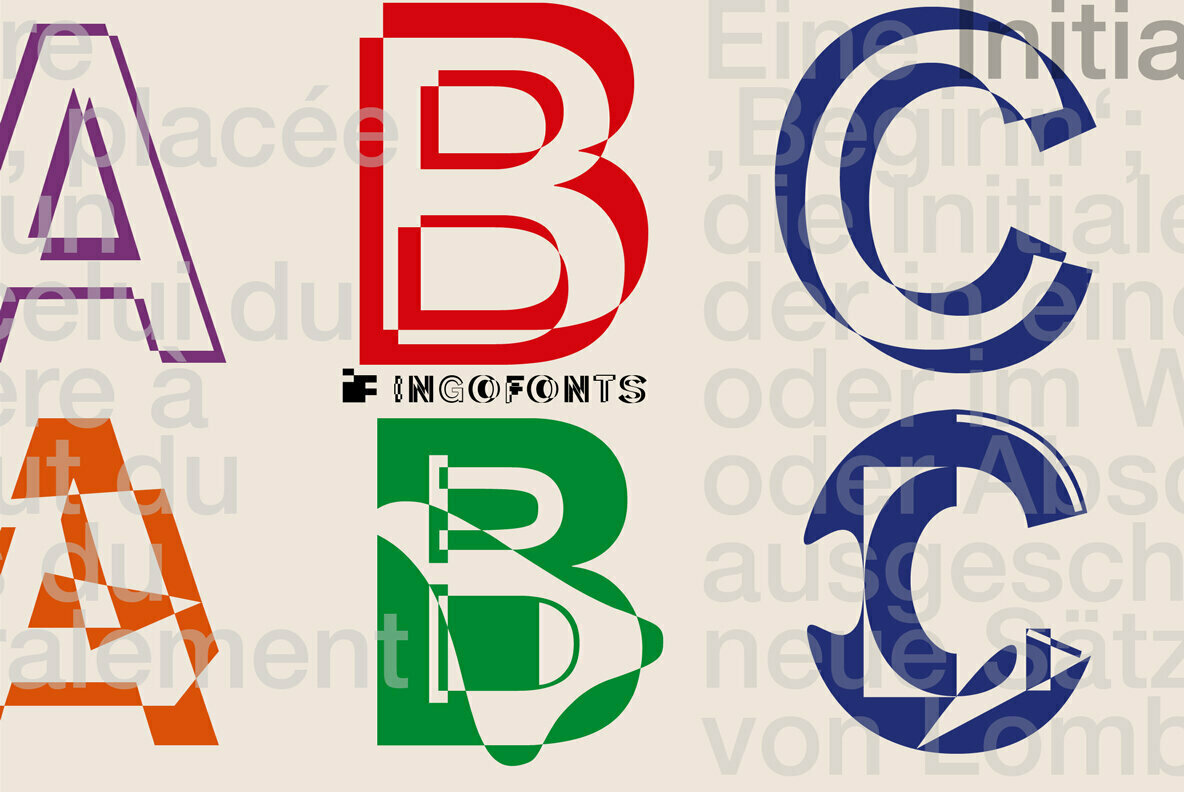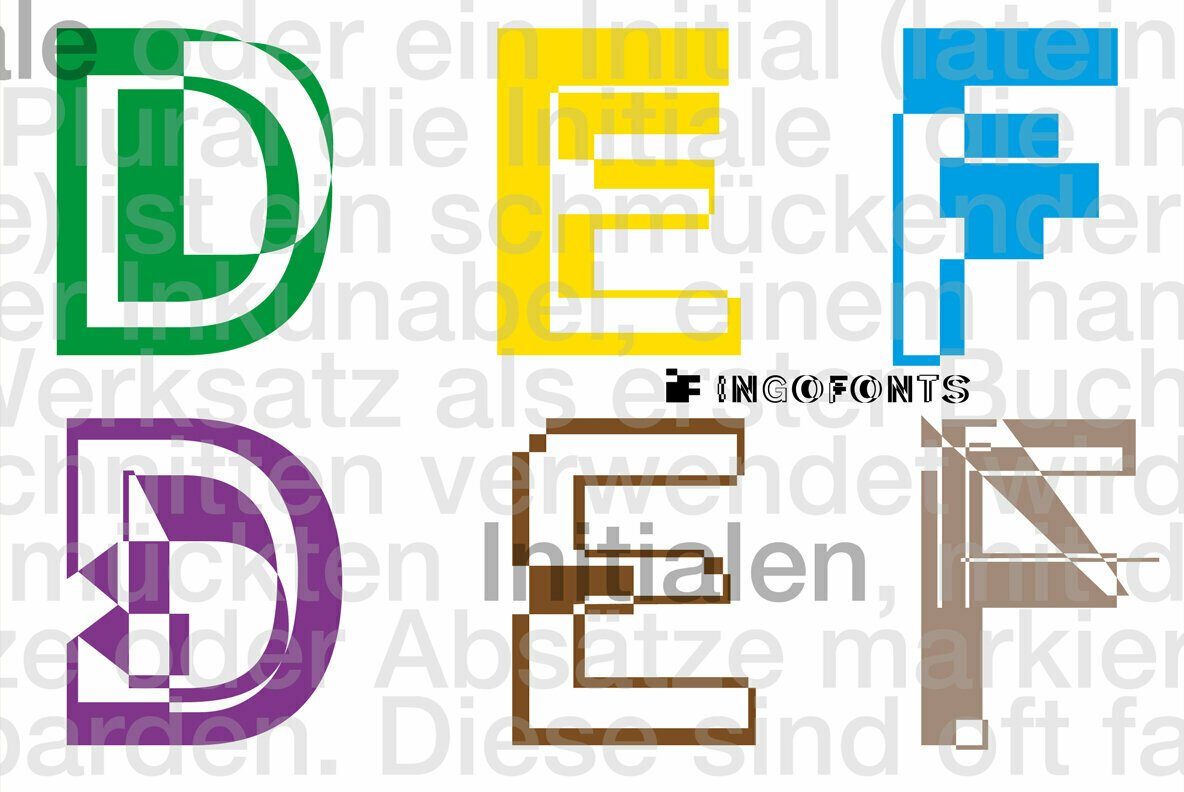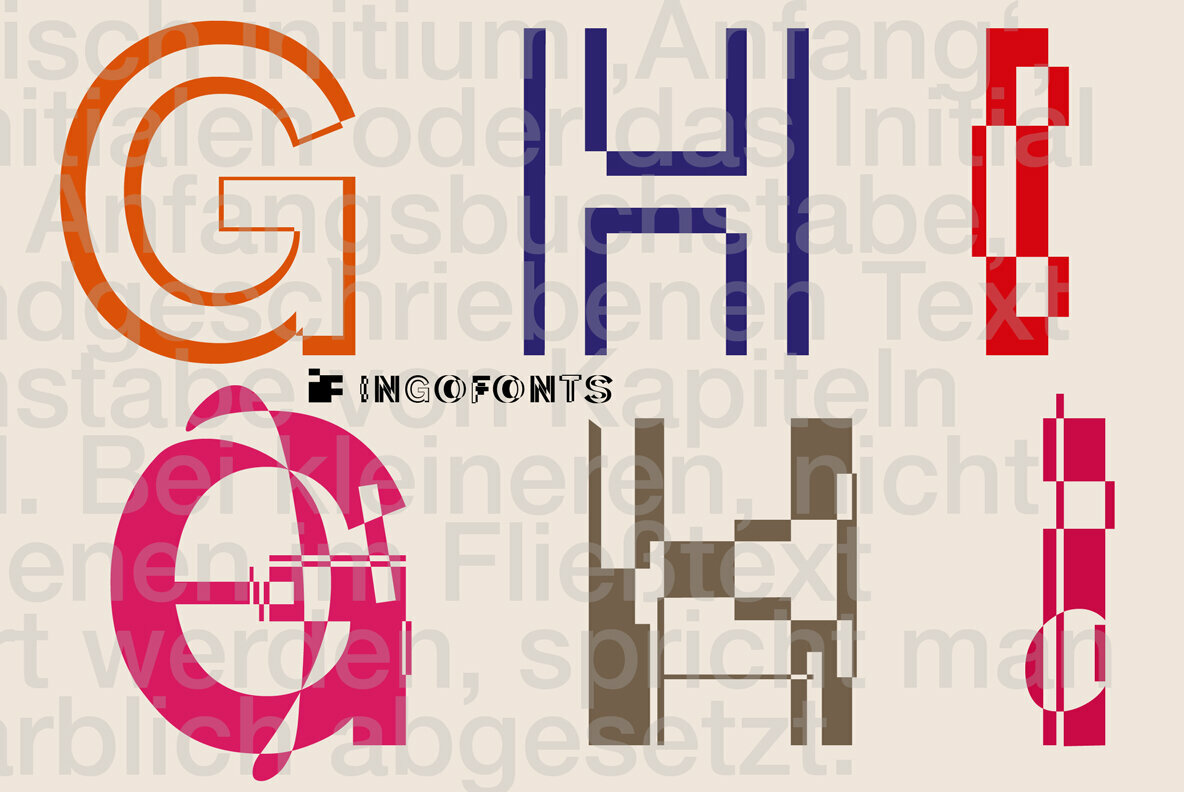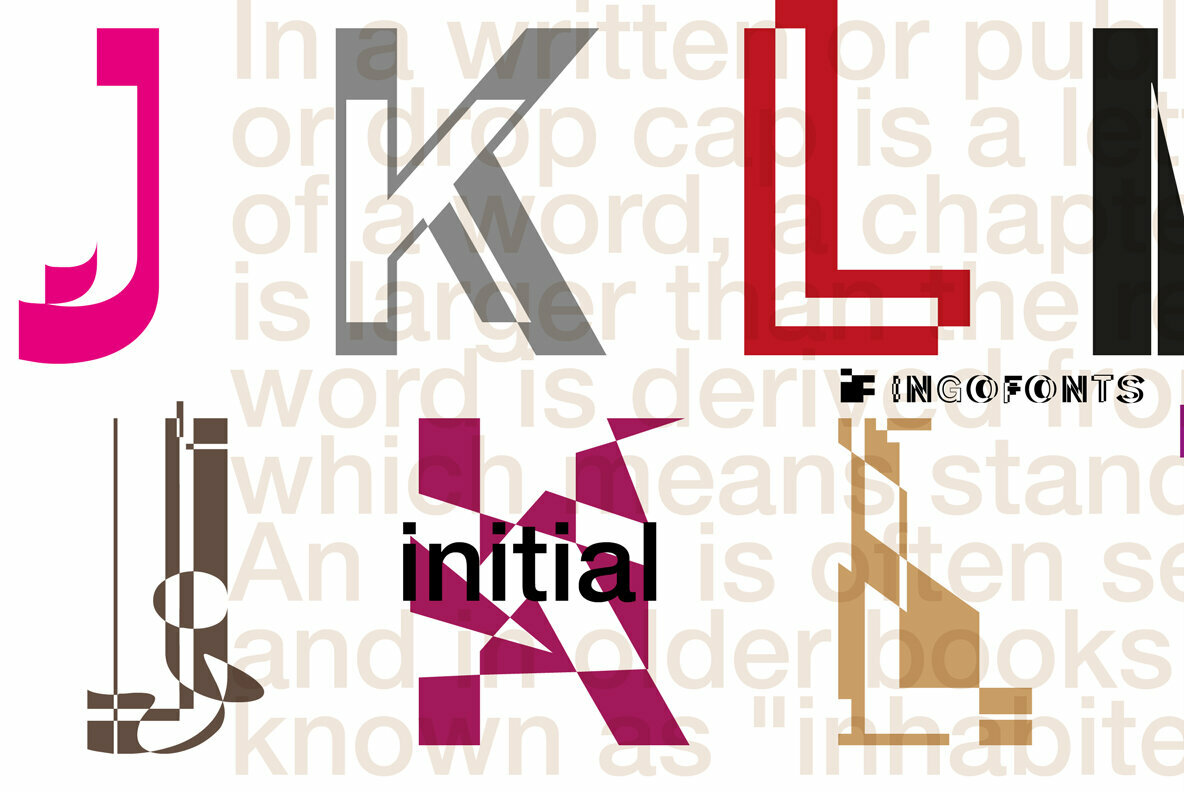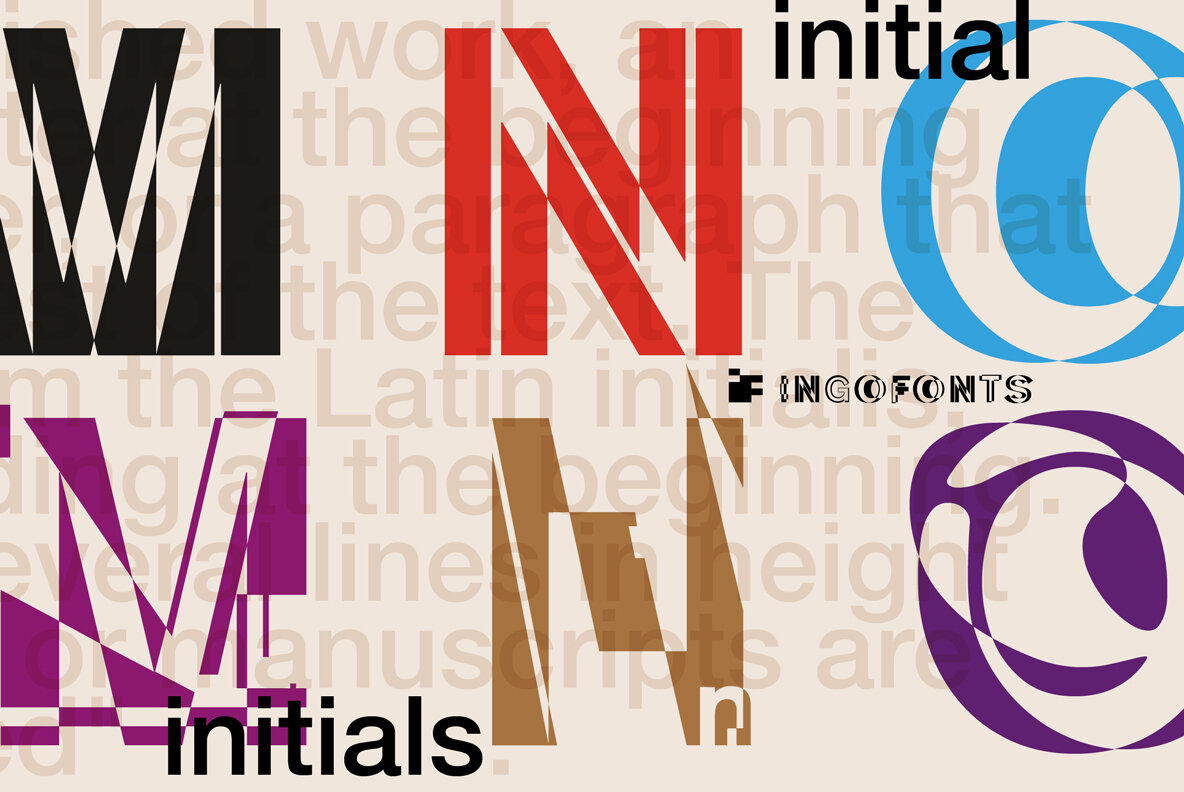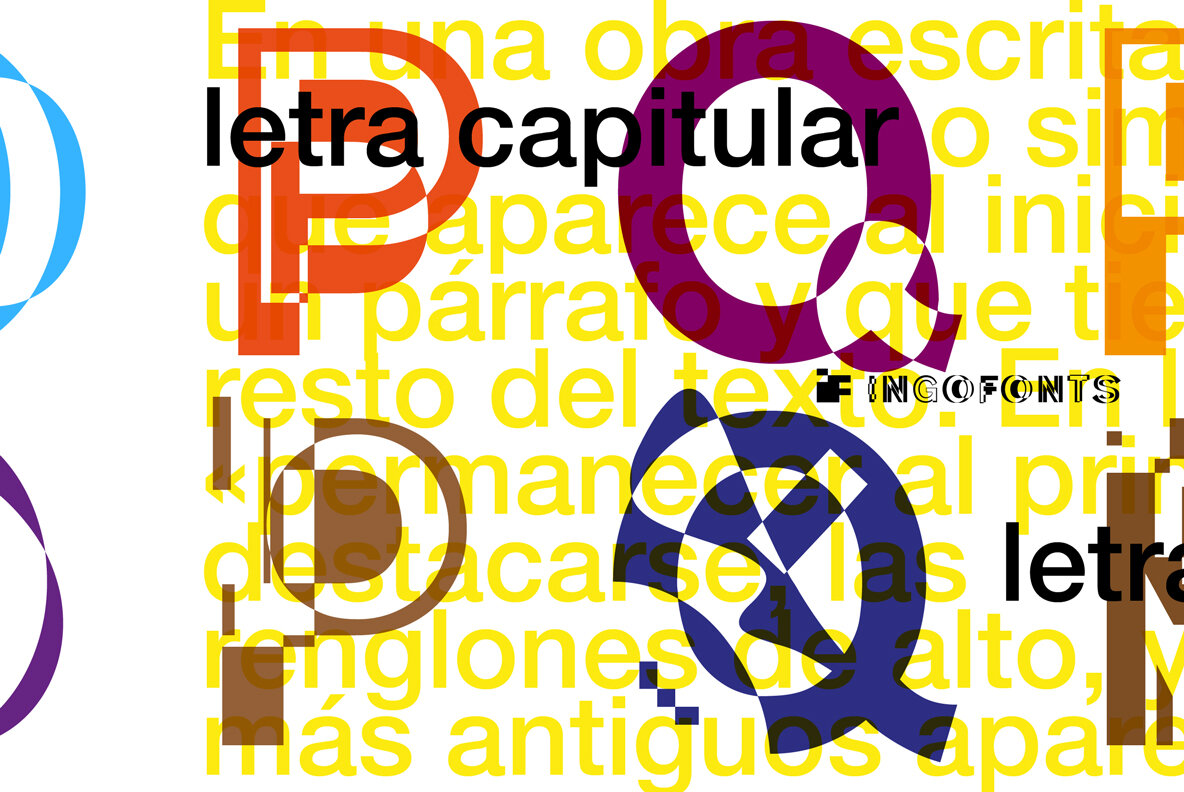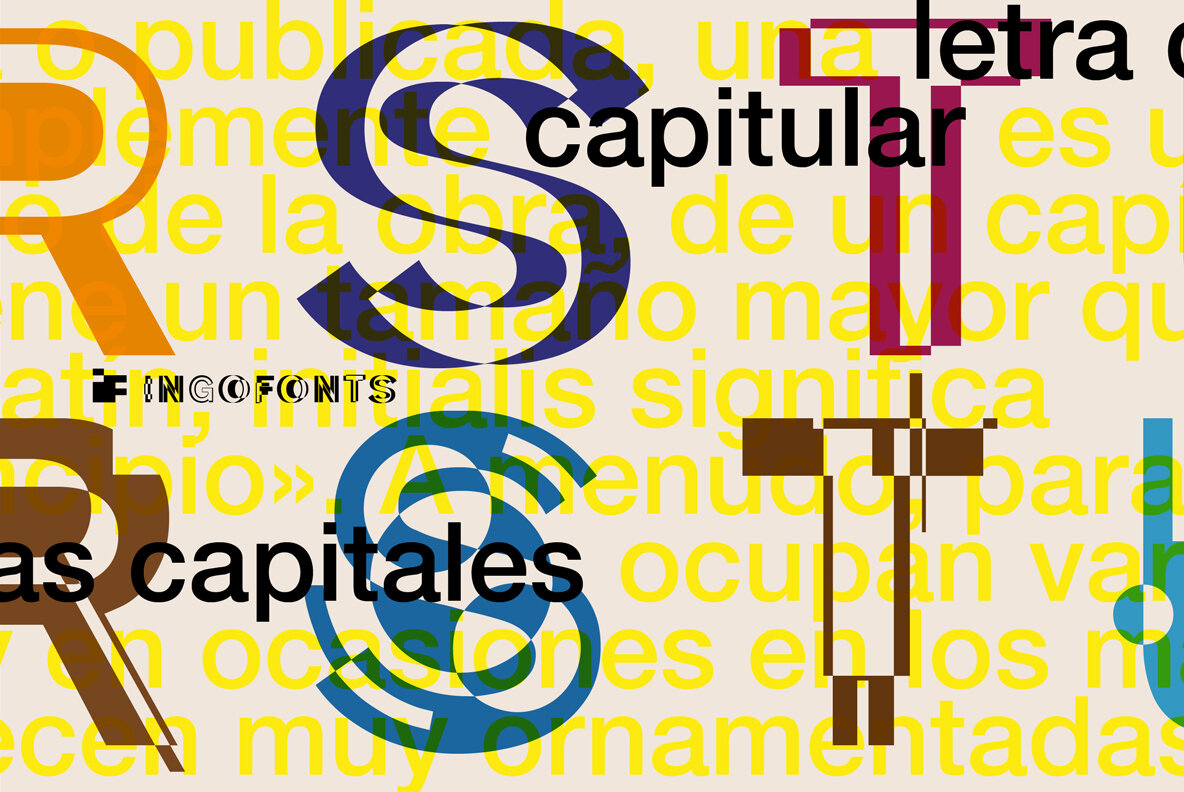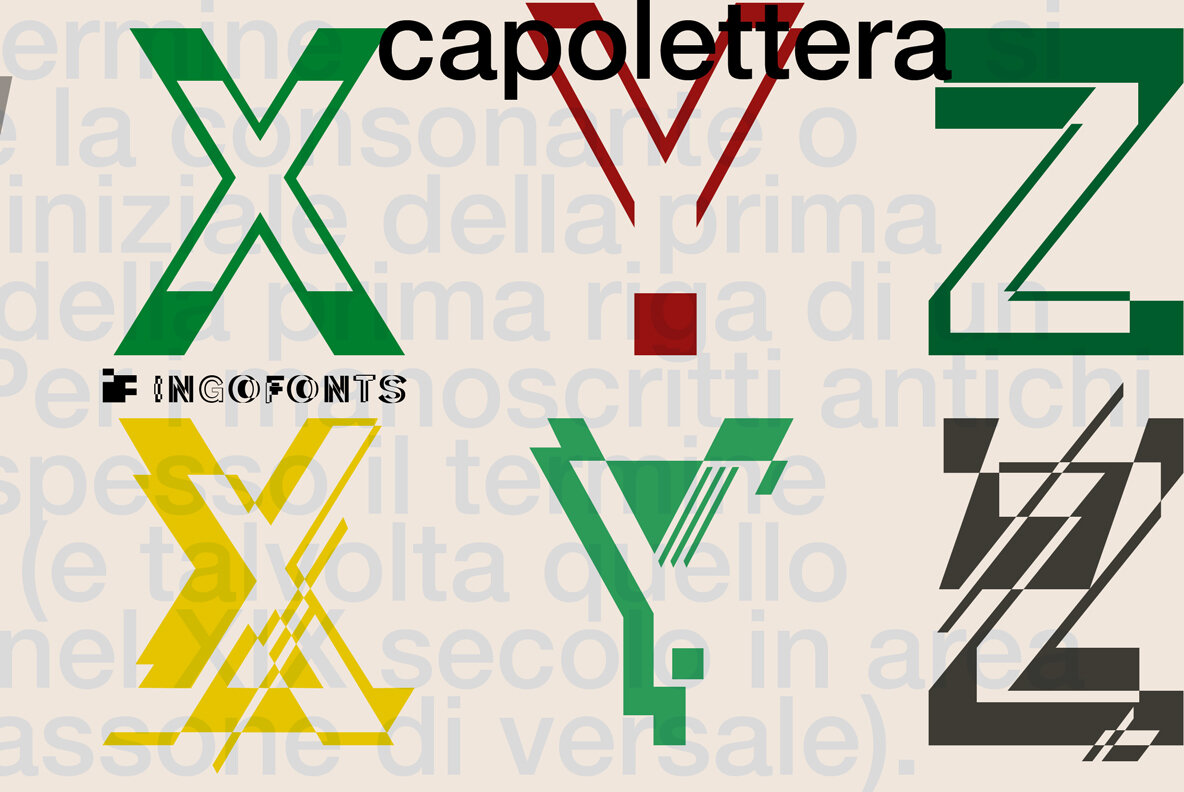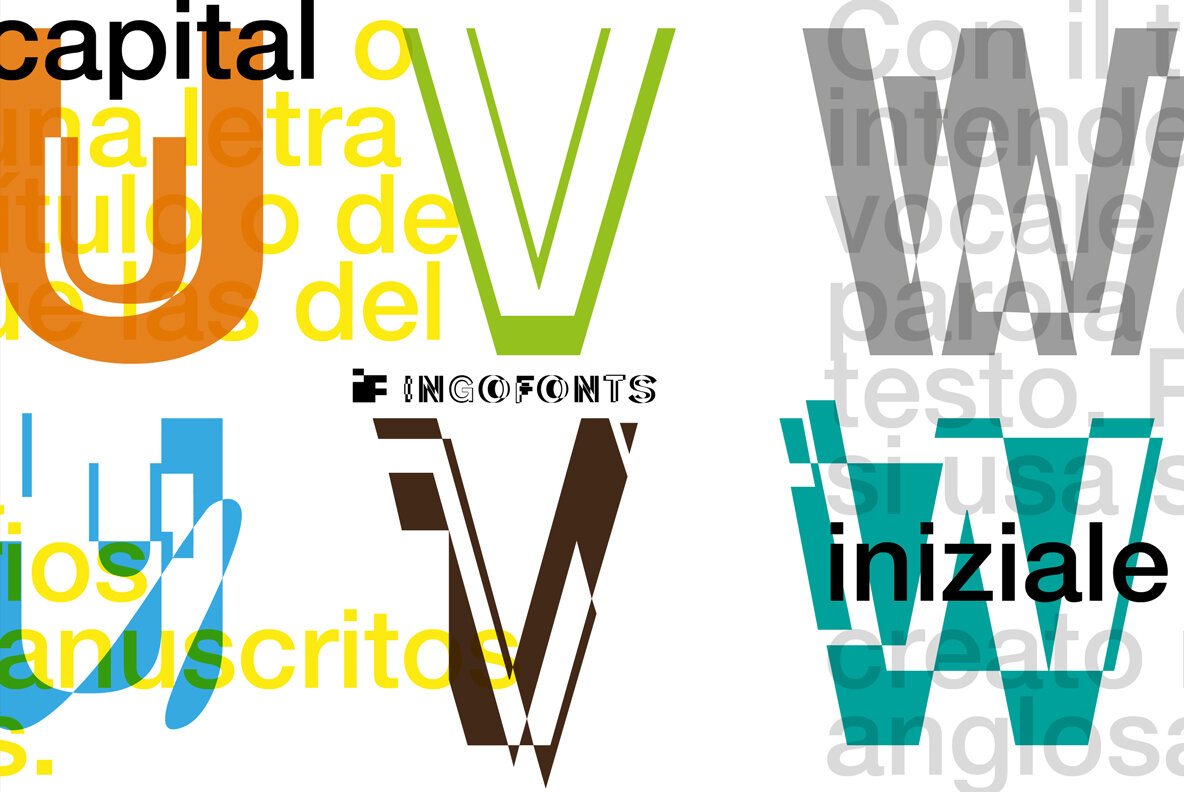
DeKunst Font
DeKunst Initialen
Deconstructive font, suitable only for initials; two variations for each letter; a game of positive and negative effects. New forms foreign to letters overlap the familiar contours. Nearly similar forms and reflections lend an ornamental effect to some of the characters. Geometrical gimmicks sometimes call to mind Kurt Schwitters, and incidental amorphous forms make one think of Hans Arp. And yet, each letter retains the essence for its legibility. Similarly, the illuminators of the Middle Ages also designed their handwritten decorative initials with imagination.
DeKunst is truly a child of the PostScript era. Ever since scripts have no longer been designed with brushes and quills, it has become normal, due to technical conditions, to define with vectors. Typefaces are defined by the contours descriptive of the inner and outer form of the letter and their filled in sections. DeKunst was created by distorting and overlapping these lines and surfaces.